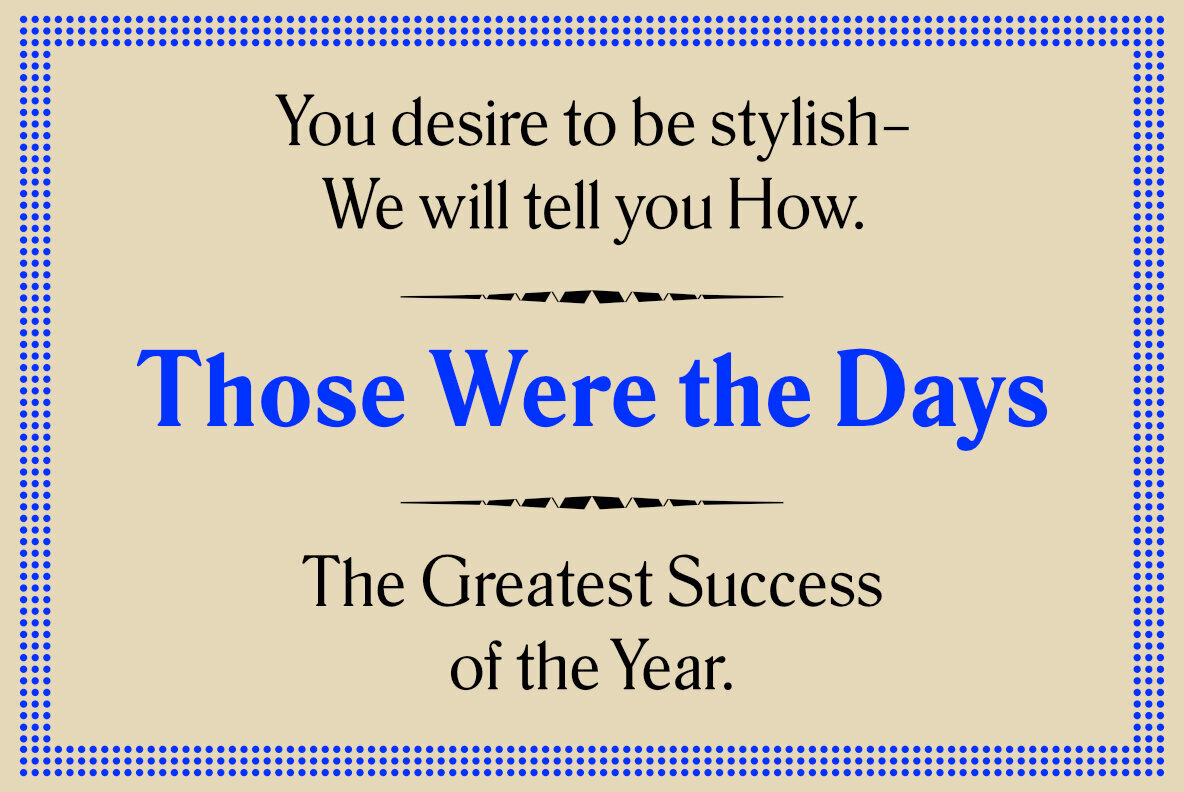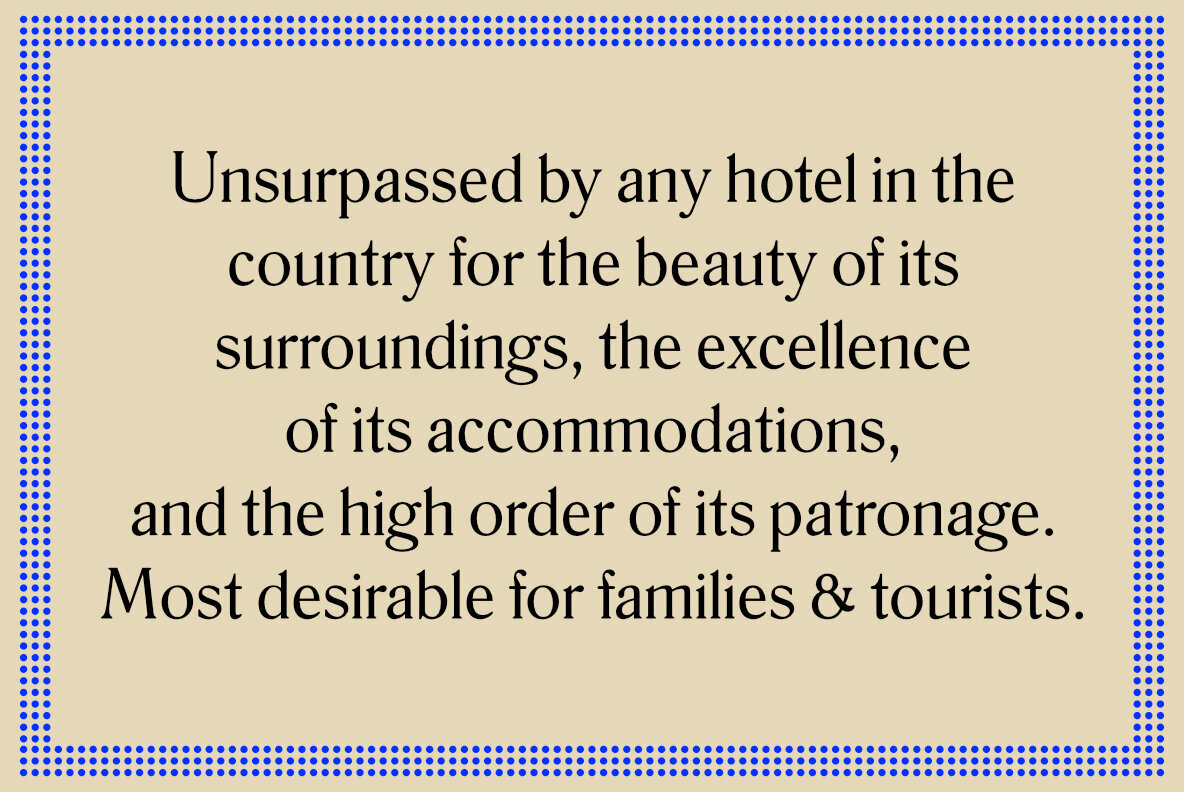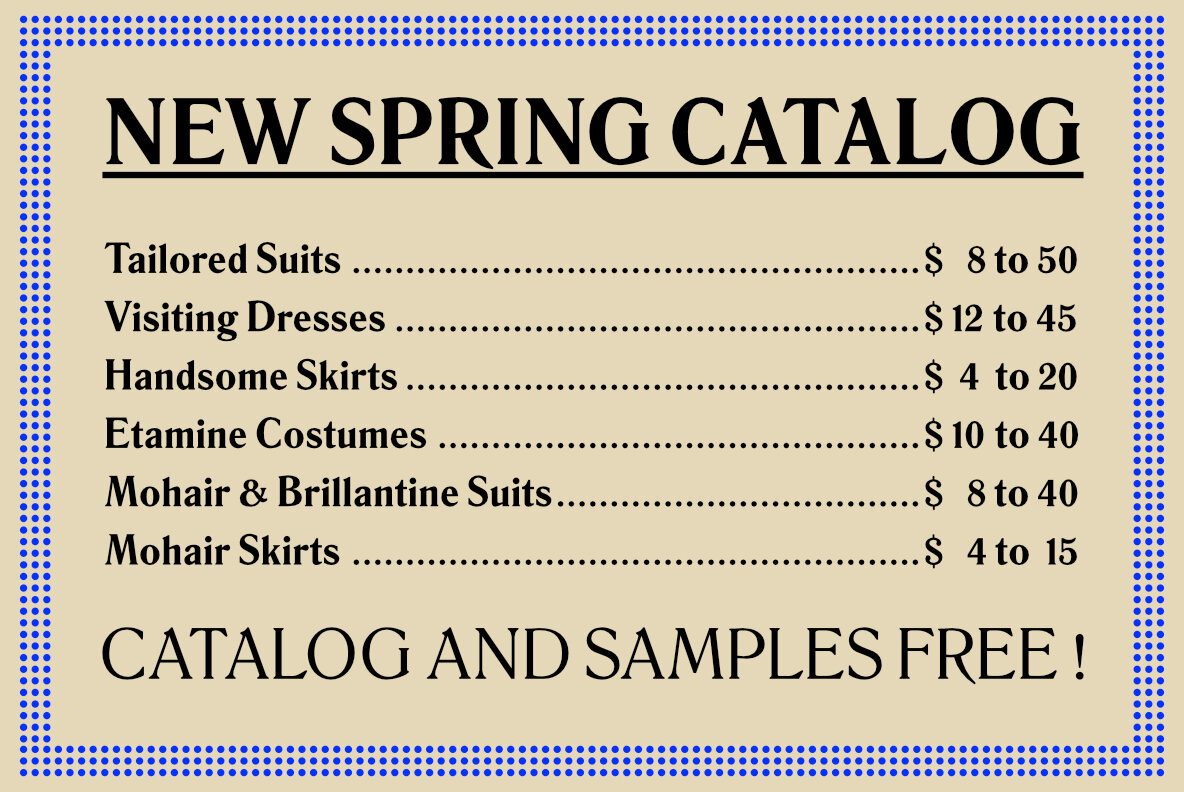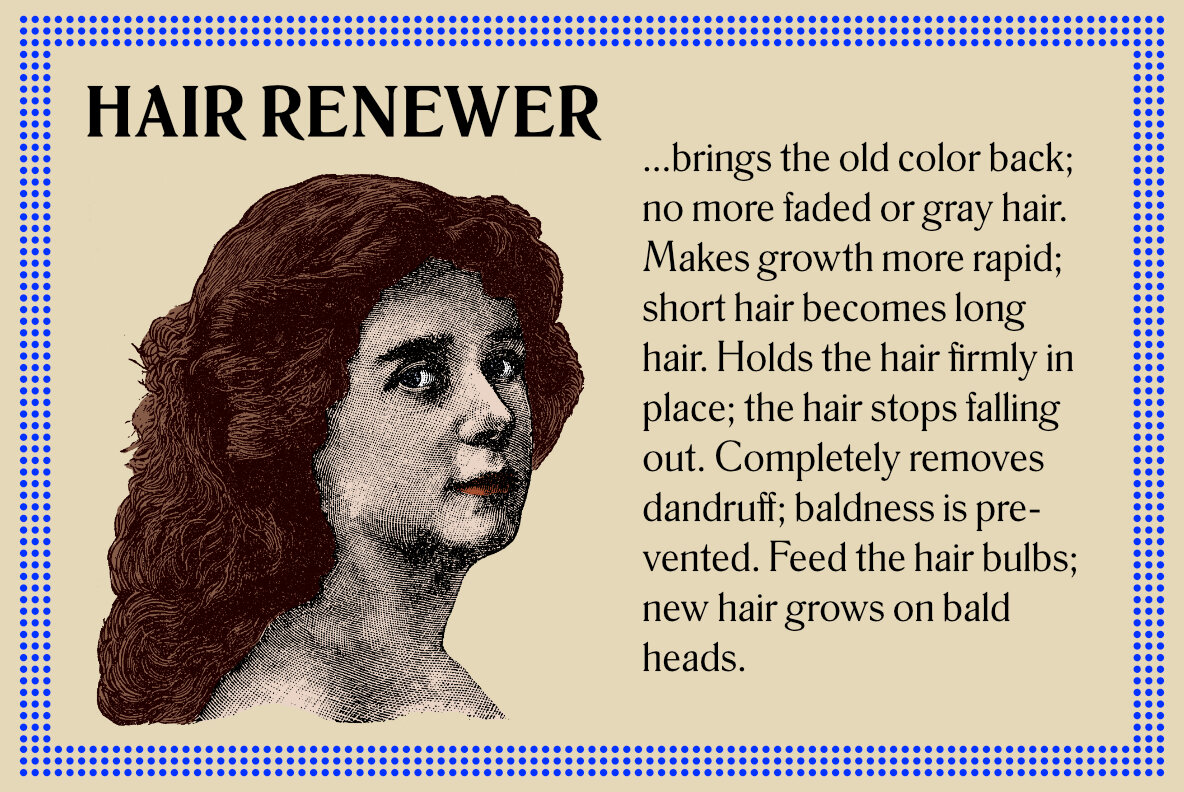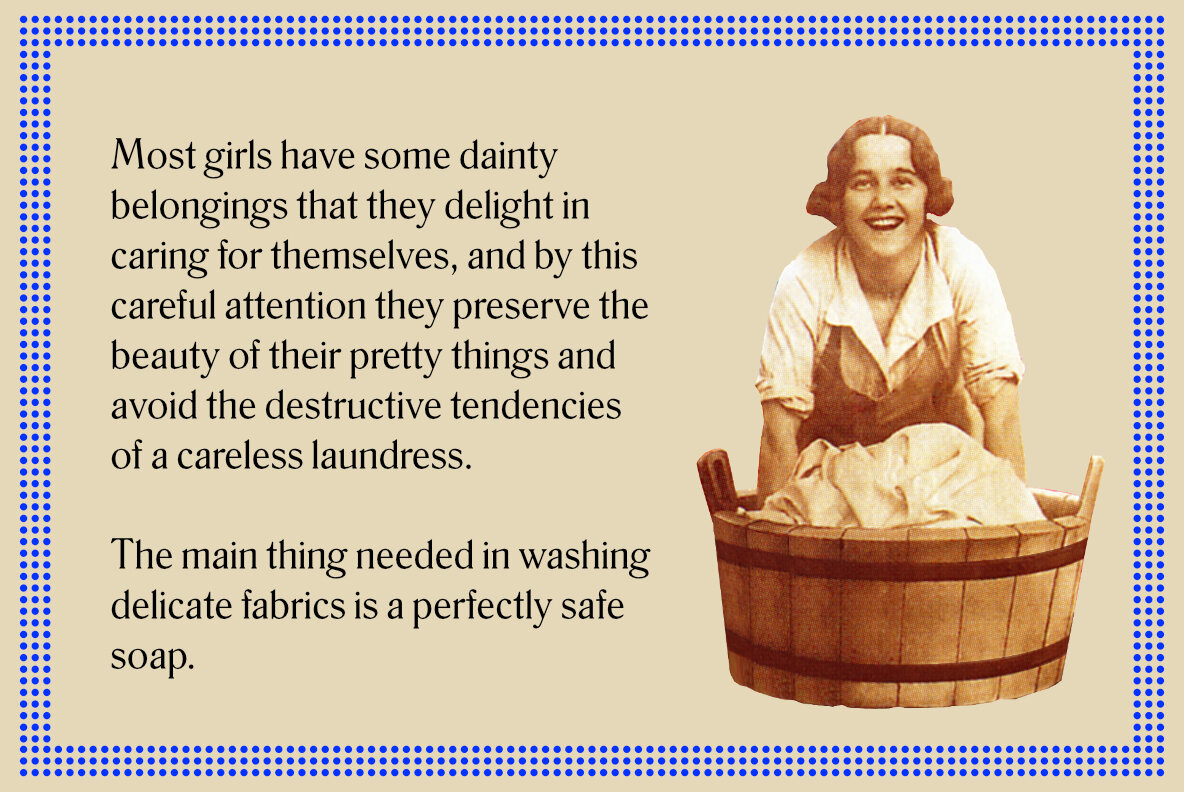
Remus Font
Both fonts of the Remus family are complete redesigns of turn-of-the-century fonts. The regular style is based upon an inhouse design of Schelter & Giesecke in 1889, called Romanisch. This font was adopted by other German foundries and slightly modified and a bold version was added. Due to their proportions, these fonts fit perfectly into narrow columns, and still they are very legible.